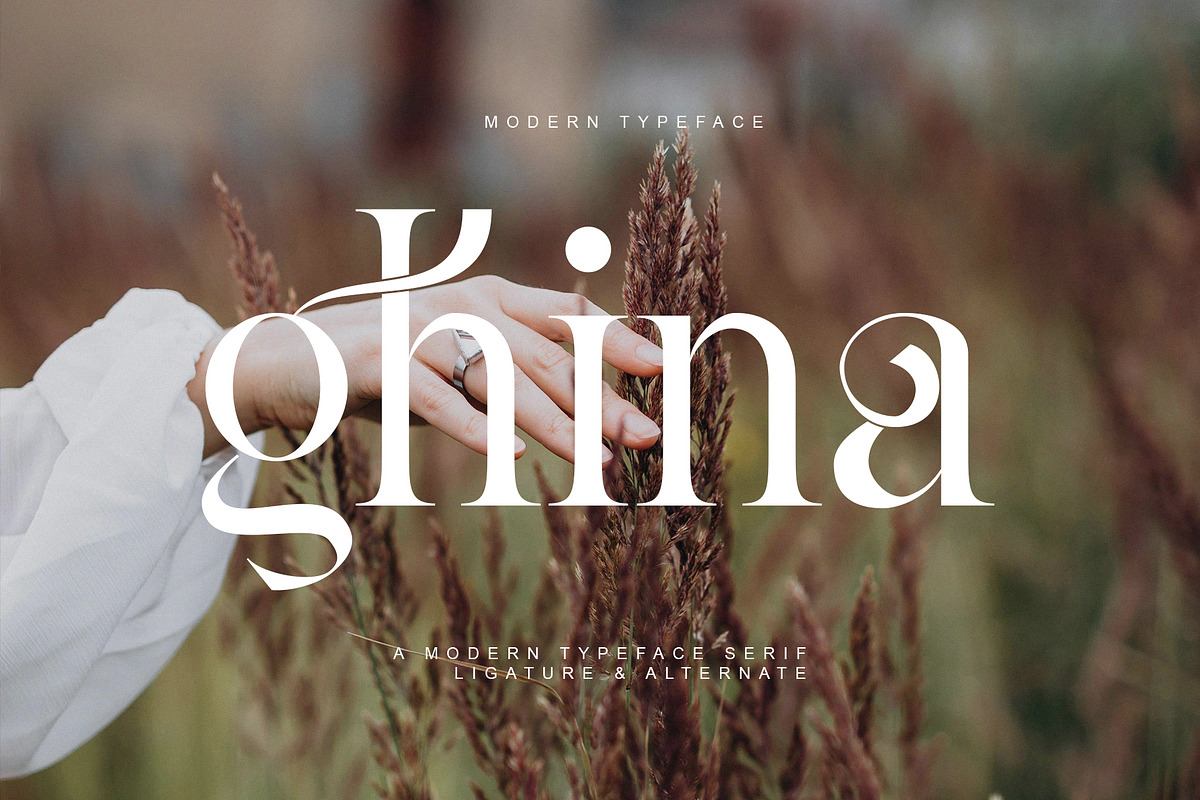
Ghina Ligature Serif Typeface Free Download
Ghina Ligature Serif Typeface Free Download is a luxurious and stylish typeface that blends classic serif elegance with modern ligature flair. With its high-contrast strokes and beautifully crafted character combinations, Ghina is perfect for fashion branding, editorial design, wedding invitations, packaging, and upscale social media content.
The included ligatures create a seamless and artistic flow between letters, adding sophistication and uniqueness to your typography. Whether you're designing a logo, headline, or elegant product label, Ghina brings a refined and distinctive edge to your work.
Designers love Ghina for its graceful look, readability, and chic personality across both digital and print media. Want to create designs that are effortlessly elegant? Download Ghina Ligature Serif Typeface Free Download and elevate your typography with refined creativity.